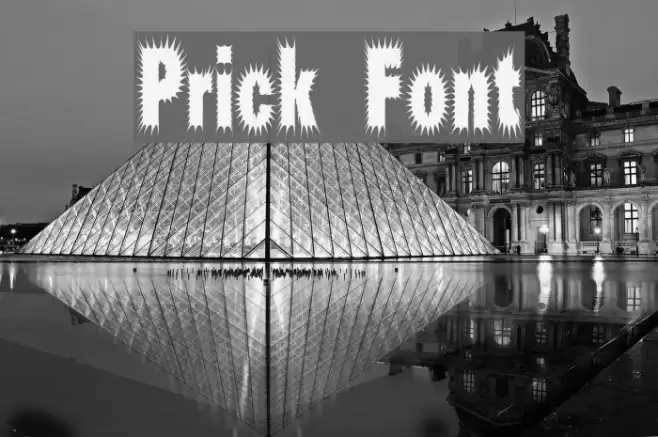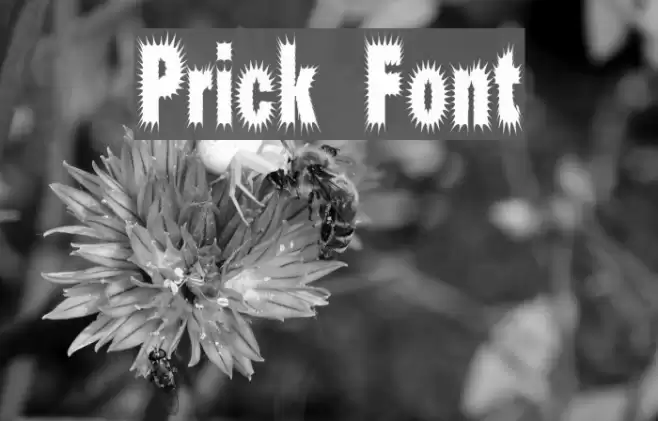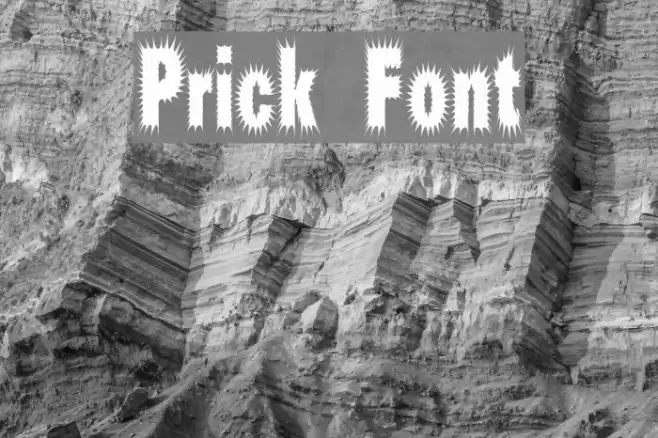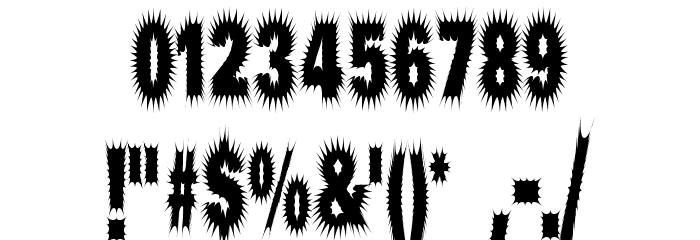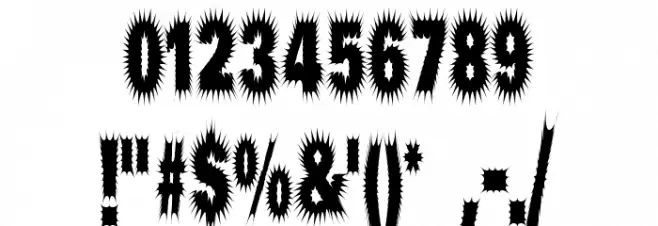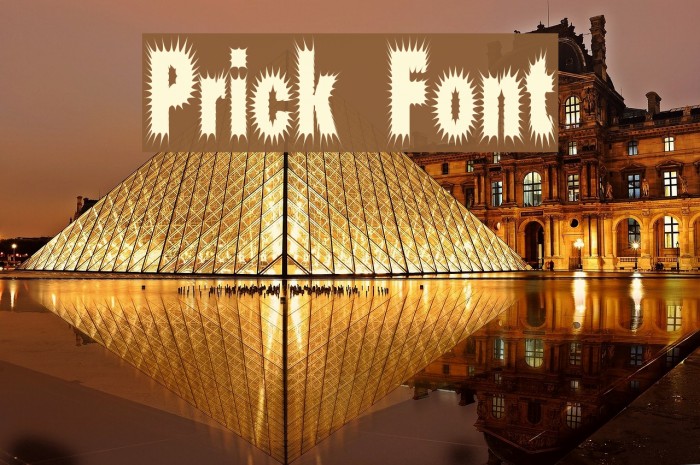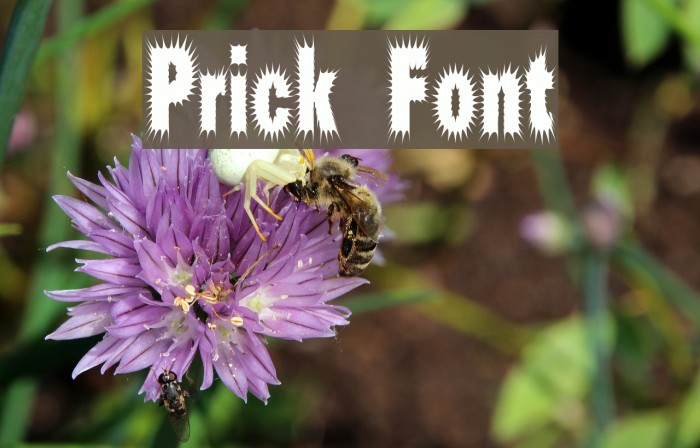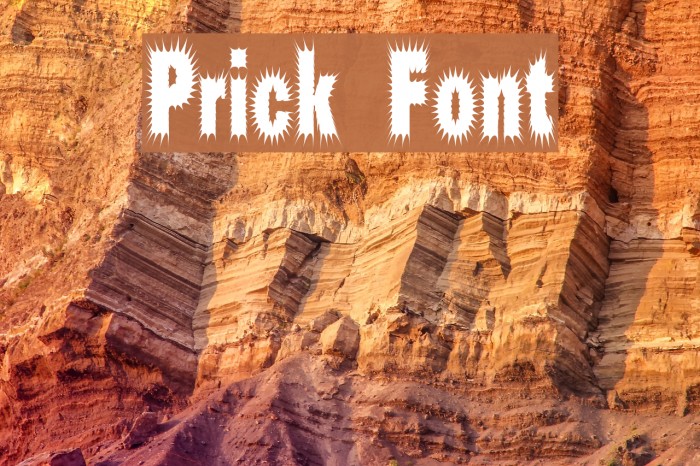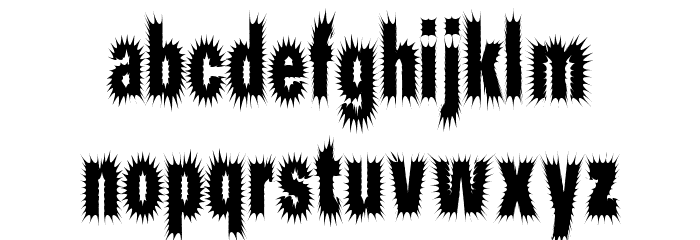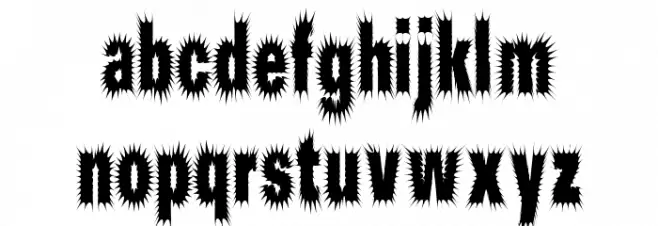
Prick Font
Prick Description
This font features a bold and striking design with sharp, jagged edges that give it a spiky appearance. The characters are uniformly bold, creating a strong visual impact. The uppercase and lowercase letters maintain a consistent style, with each character appearing as if it is surrounded by thorns or spikes. This unique design is carried through the numerals and special characters, ensuring a cohesive look across all glyphs. The font's aggressive and edgy style makes it stand out, making it suitable for attention-grabbing headlines or thematic designs that require a bold statement.
A bold, spiky font with sharp, jagged edges for a striking visual impact from Script fonts.
- Proposed Projects: Ideal for horror-themed posters, edgy branding, Halloween invitations, or any project needing a bold, dramatic typeface.